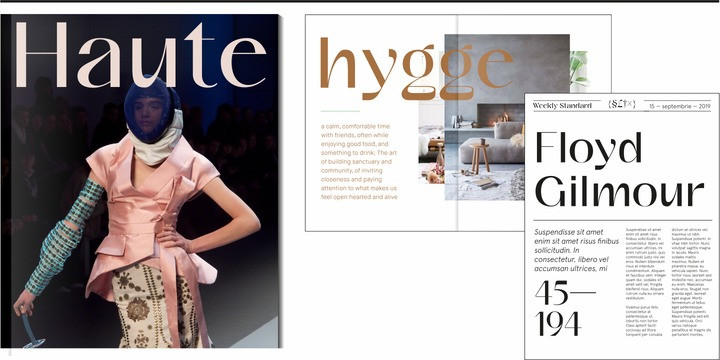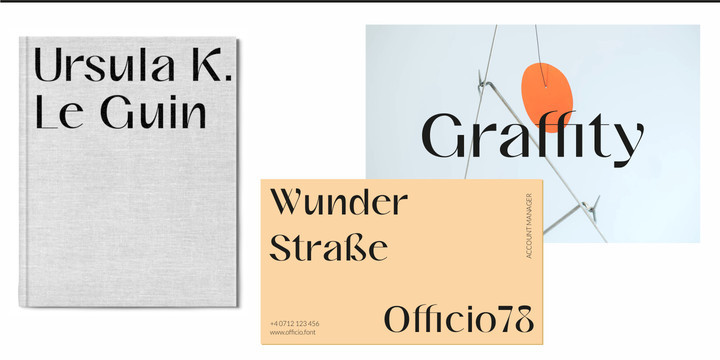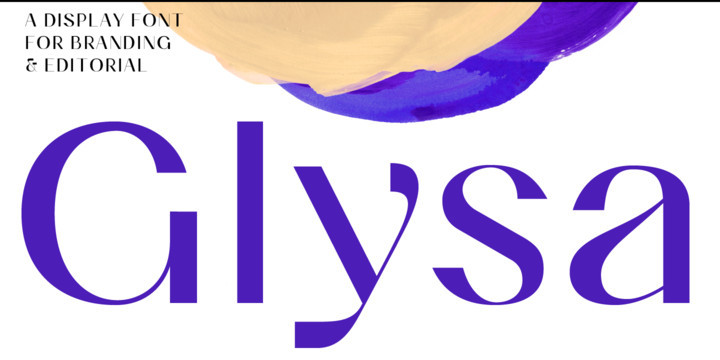
Glysa Font
A font intended to convey brands and stories, to become a logo or a headline, created by graphic designer Victor Bartis.
Displaying personality, vitality, a bit of playfulness and a bit of elegance, it is made to capture the attention. It is inspired by peculiar, quirky and artistic graphic design